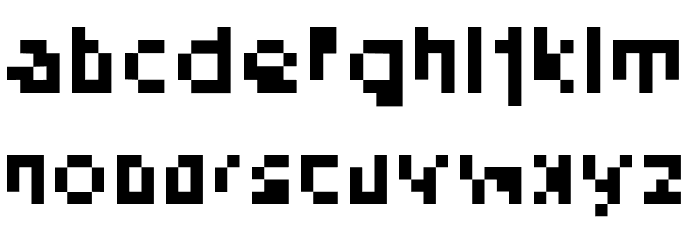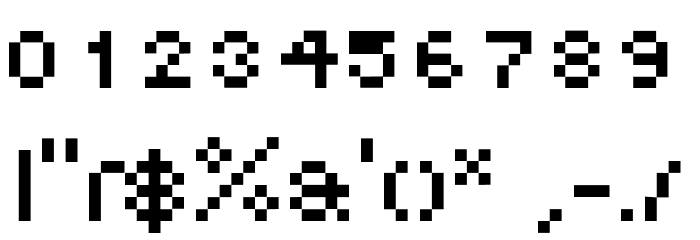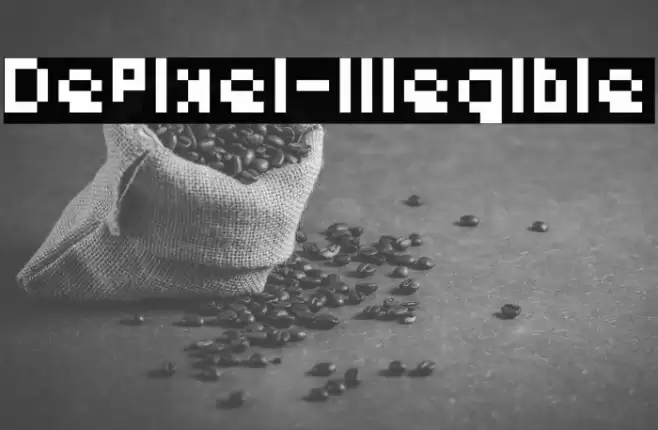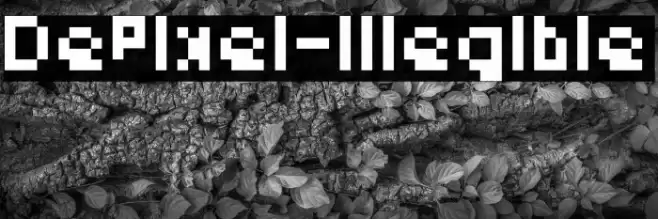
DePixel-Illegible Font
This font is characterized by its pixelated, blocky design, reminiscent of early digital or video game typography. Each character is composed of square pixels, creating a retro, nostalgic feel. The uppercase and lowercase letters maintain a consistent height and width, contributing to a uniform appearance. Numbers and special characters follow the same pixelated style, ensuring visual coherence across all elements. This font is ideal for projects that aim to evoke a sense of nostalgia or pay homage to classic digital aesthetics.
A pixelated, retro-style font inspired by early digital typography.
- Proposed Projects: Perfect for video game design, retro-themed posters, digital art projects, and any creative work that seeks to capture the essence of early computer graphics.
- Overall Style: Vintage
- Use Case: Headlines, Logos, Digital Art